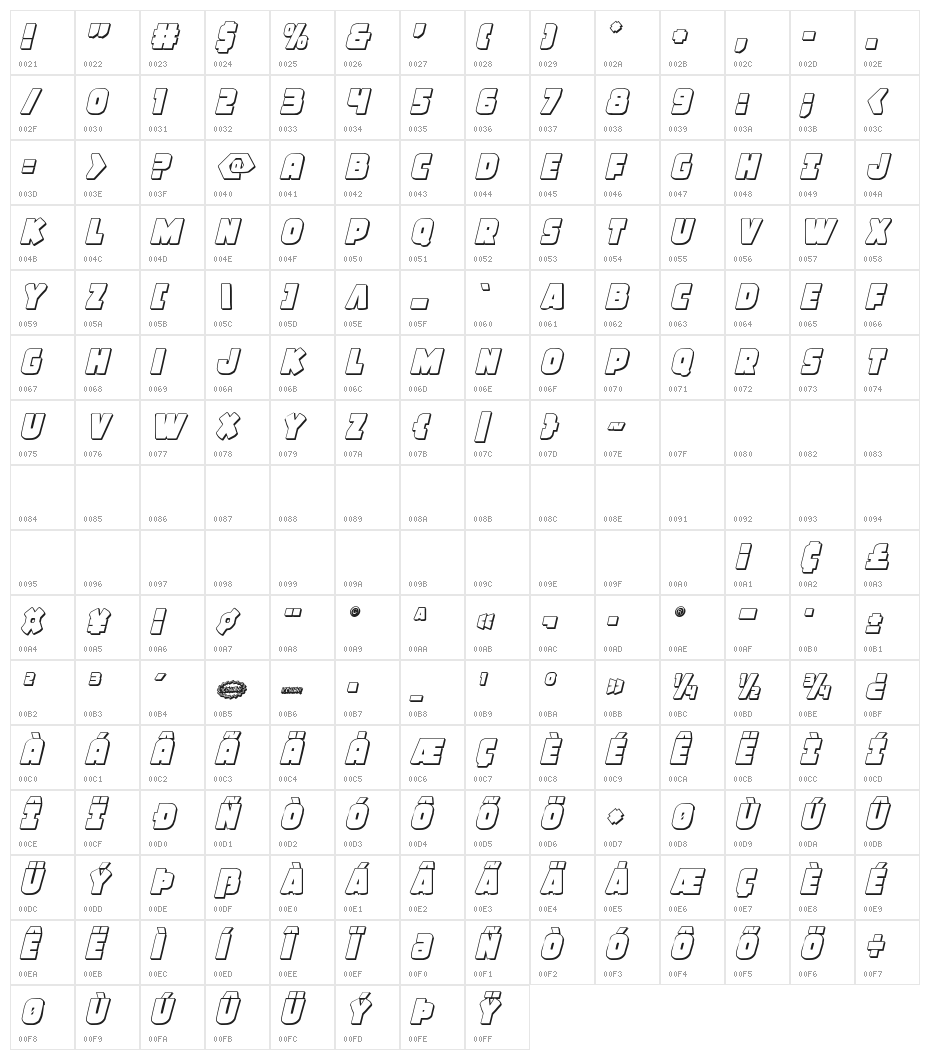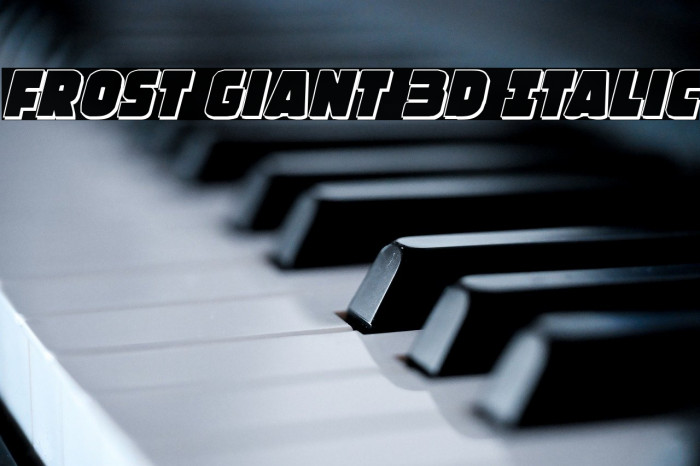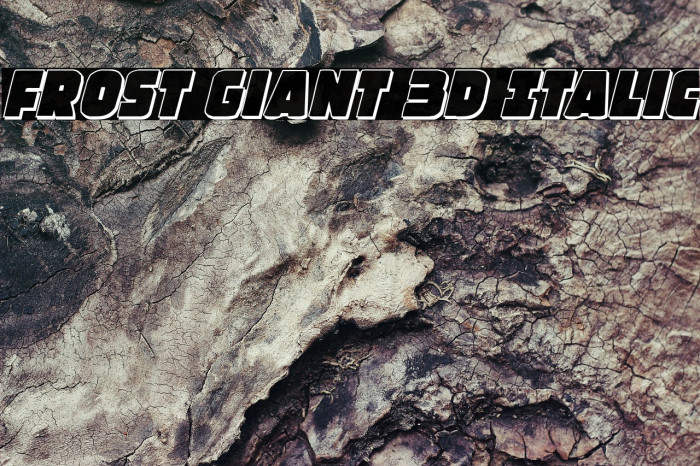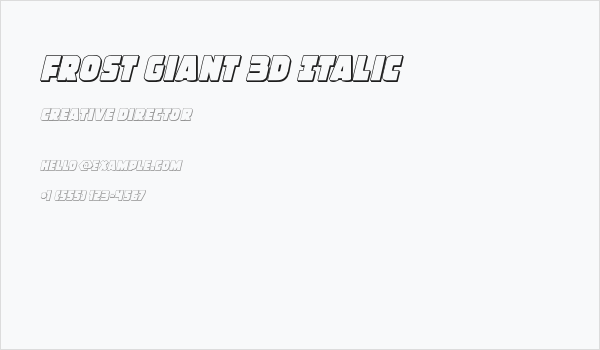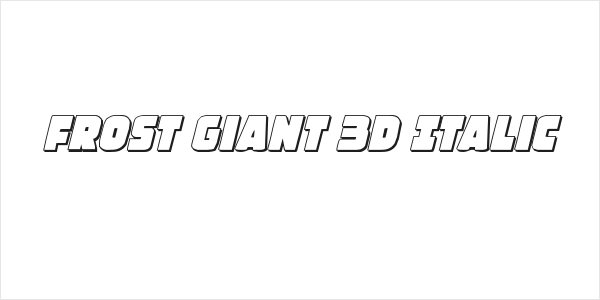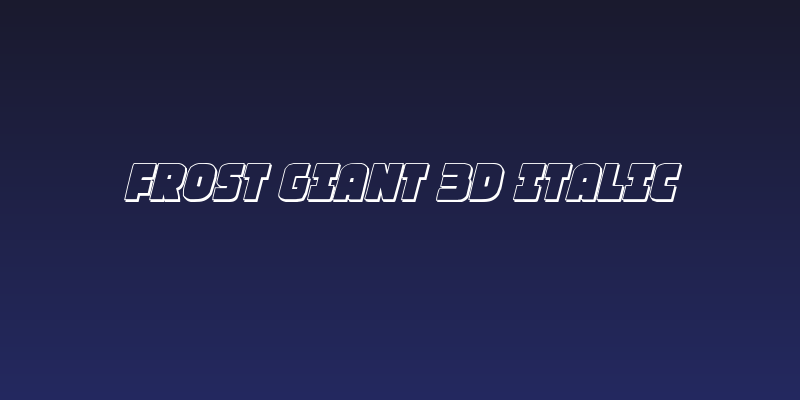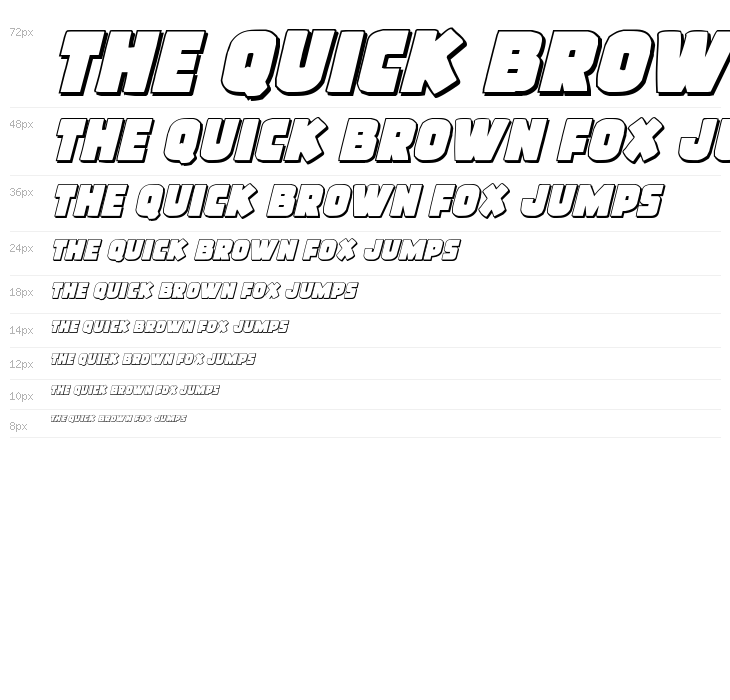
Frost Giant 3D Italic Font
Frost Giant 3D Italic Description
This font features a bold, three-dimensional appearance with an italic slant, giving it a dynamic and impactful look. The characters are robust and wide, with a strong presence that makes them stand out. The 3D effect is achieved through a shadow-like outline that adds depth to each letter. The style is consistent across uppercase, lowercase, numbers, and special characters, maintaining a cohesive and striking visual identity. The font's boldness and unique style make it suitable for attention-grabbing designs.